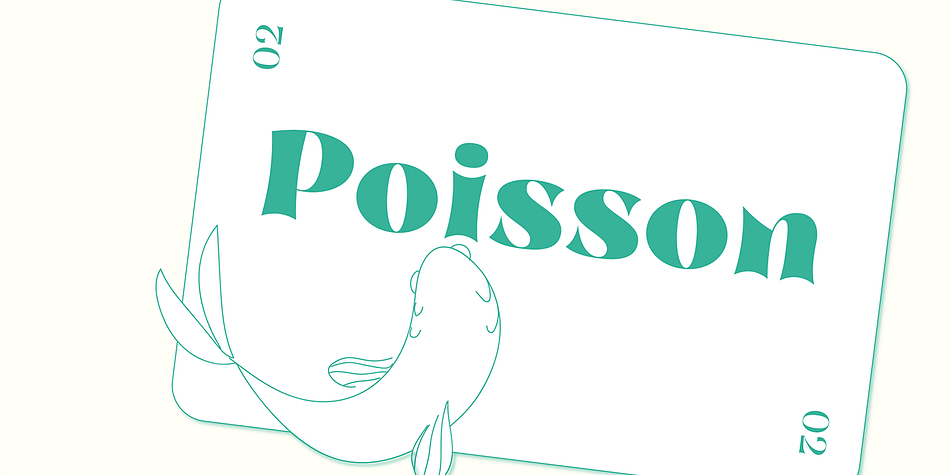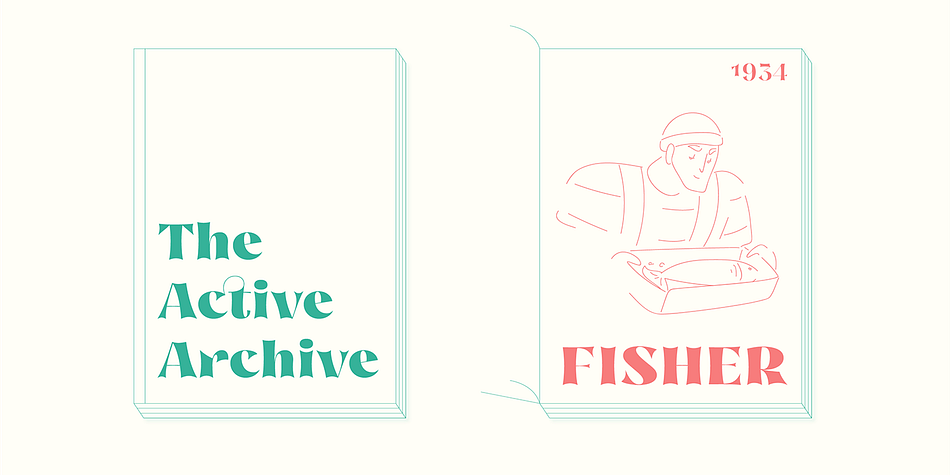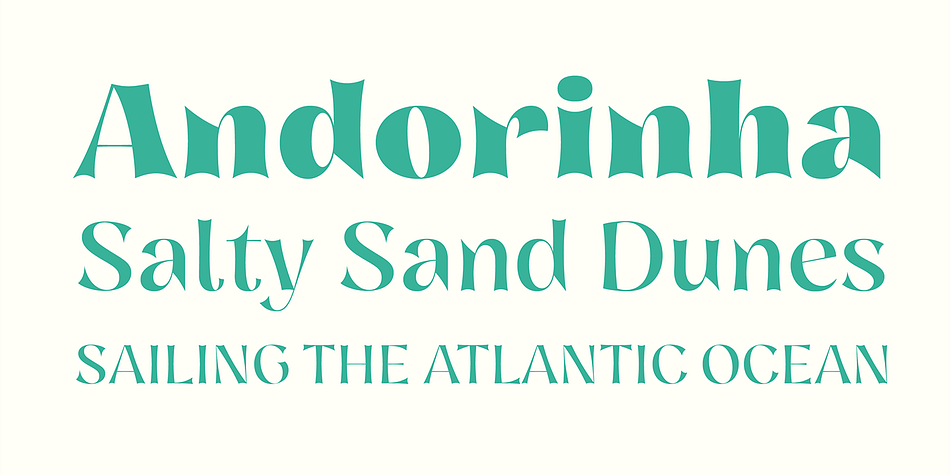
Nazaré Exuberant
Designed by Natanael Gama, Nazaré Exuberant is a display serif font family. This typeface has six styles and was published by Ndiscover.
Nazaré Exuberant is the Poster version of Nazaré. This version makes the vintage design more elegant and luxurious.
It has super high contrast and the semi-serifs were turned into opulent serifs. Some shapes were redesigned by adding a slight calligraphic feel, making it even more vibrant. This way this design got more organic, more human, more serious, more trustworthy and more luxurious.
This is the design for your posters, headlines and actually anything where the letters have a big point size. If you need a more text suitable version you can always use the original Nazaré.
Another feature is the insertion of some Opentype features: Ligatures were added as well as old style numbers.
With its six weights you will have plenty of room for many variations. From the Regular that focus more on elegance to the Heavy that focus more on the lavishness. Regardless of which style you choose Nazaré Exuberant is so unique that your designs will not remain unnoticed.